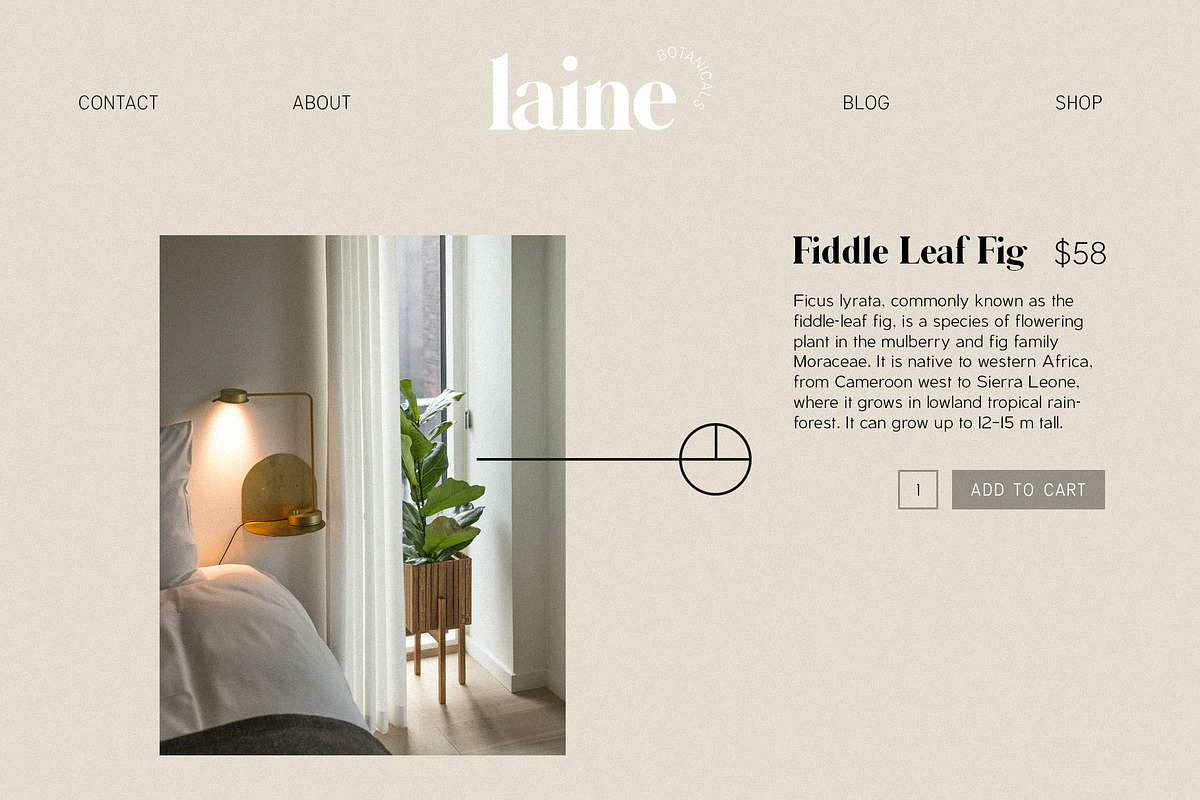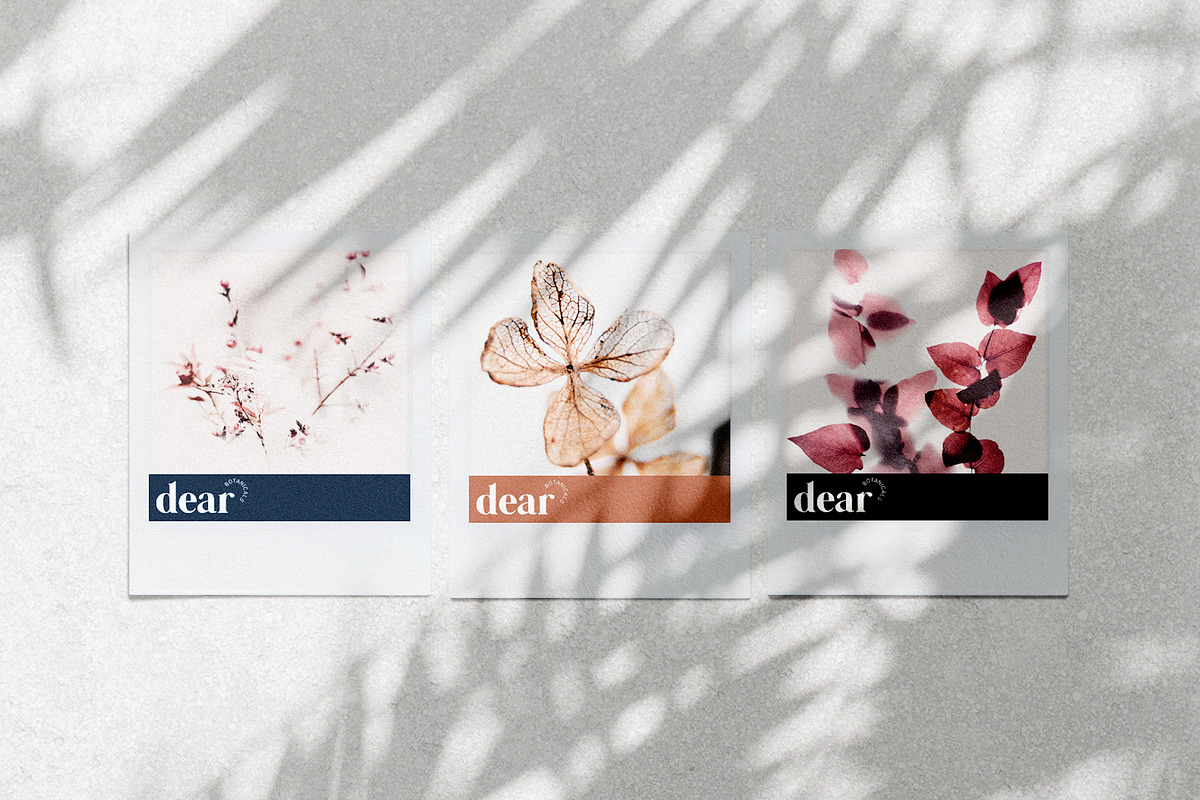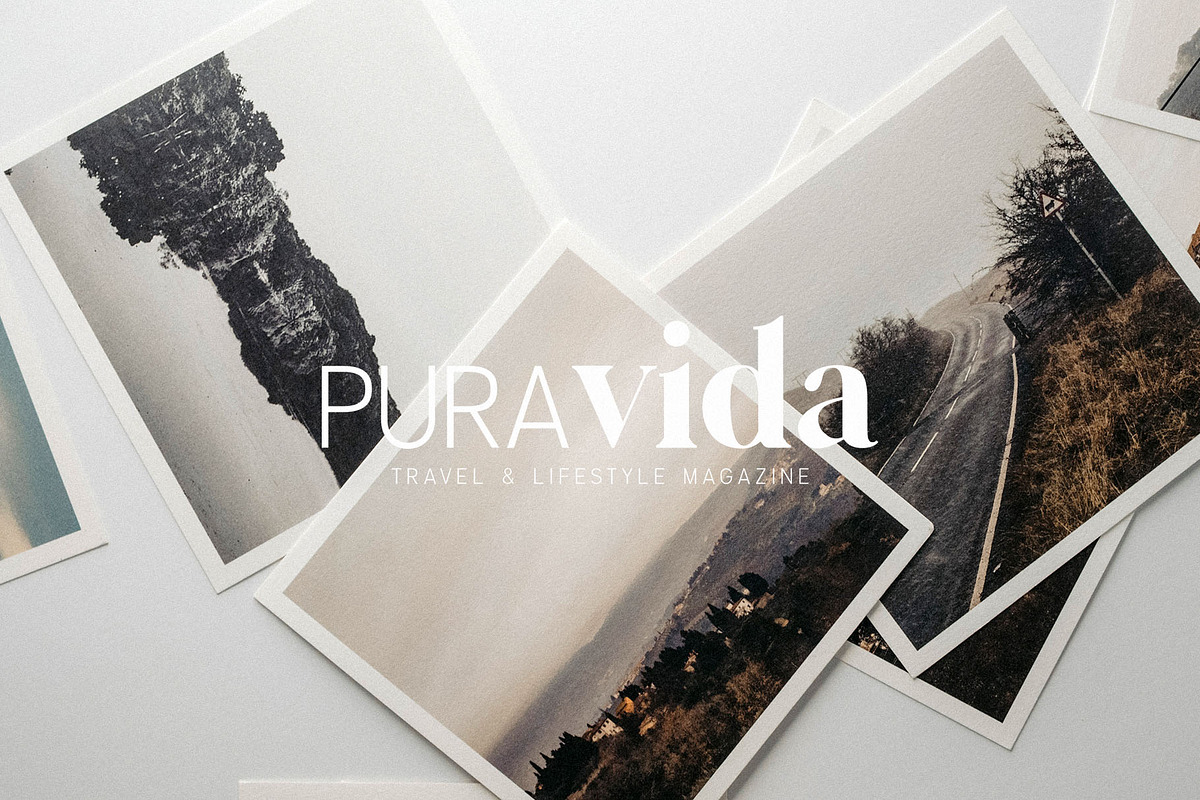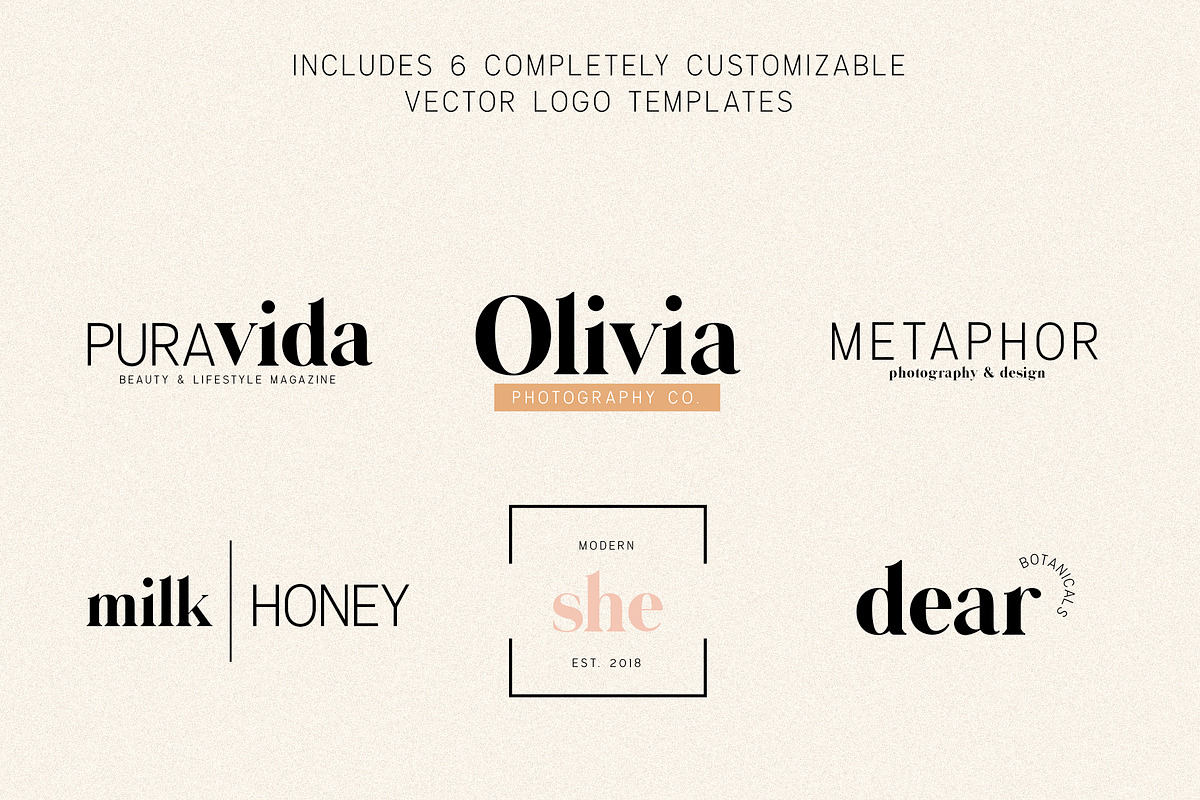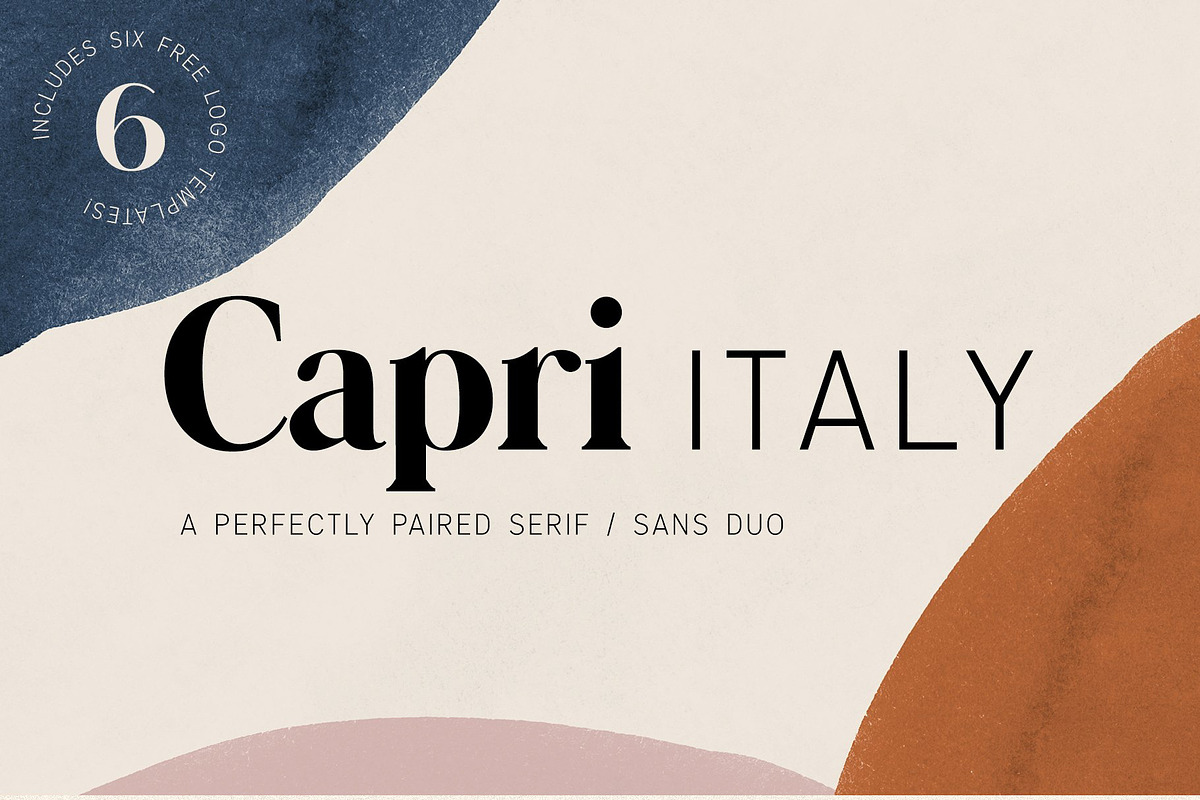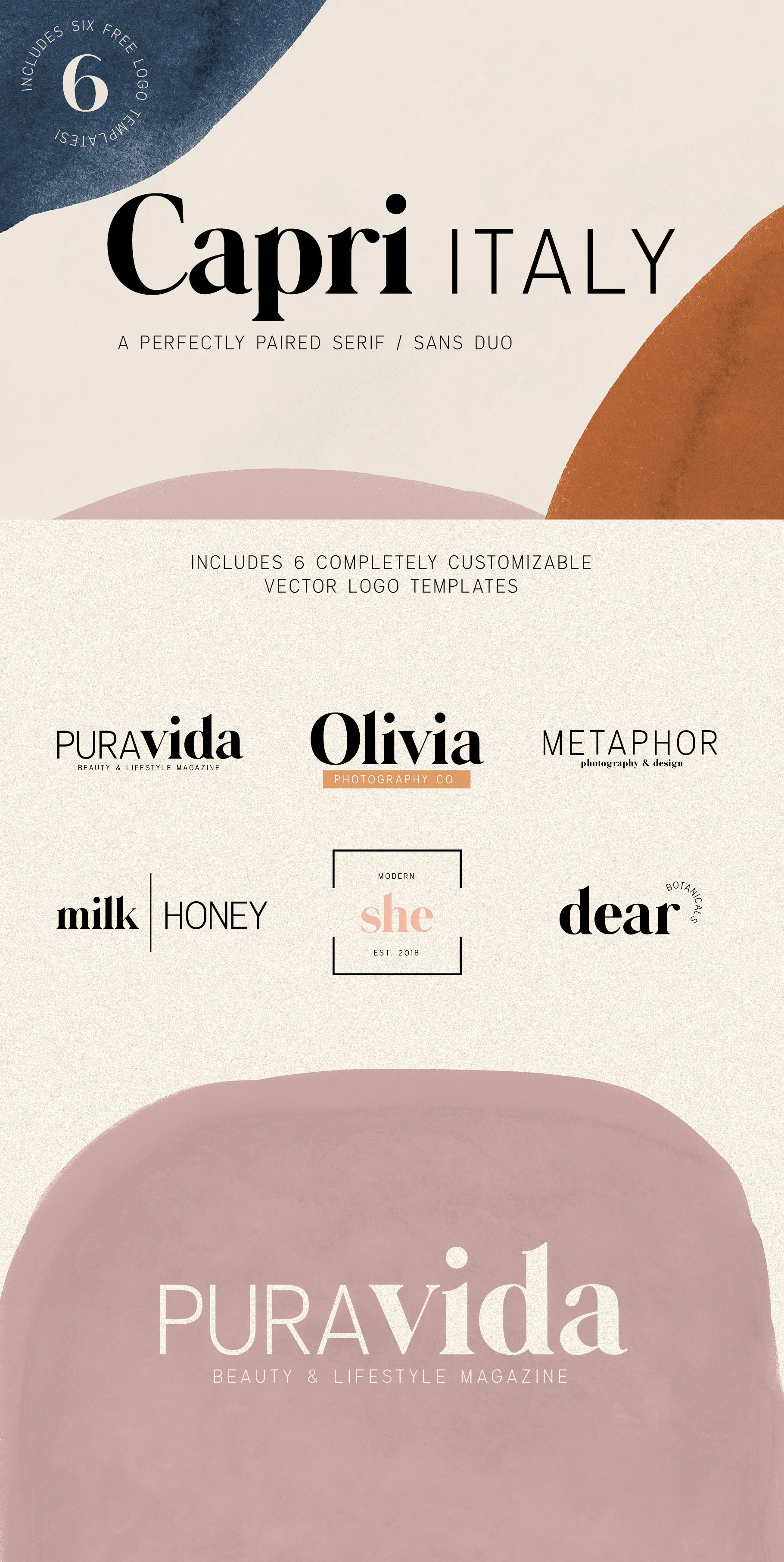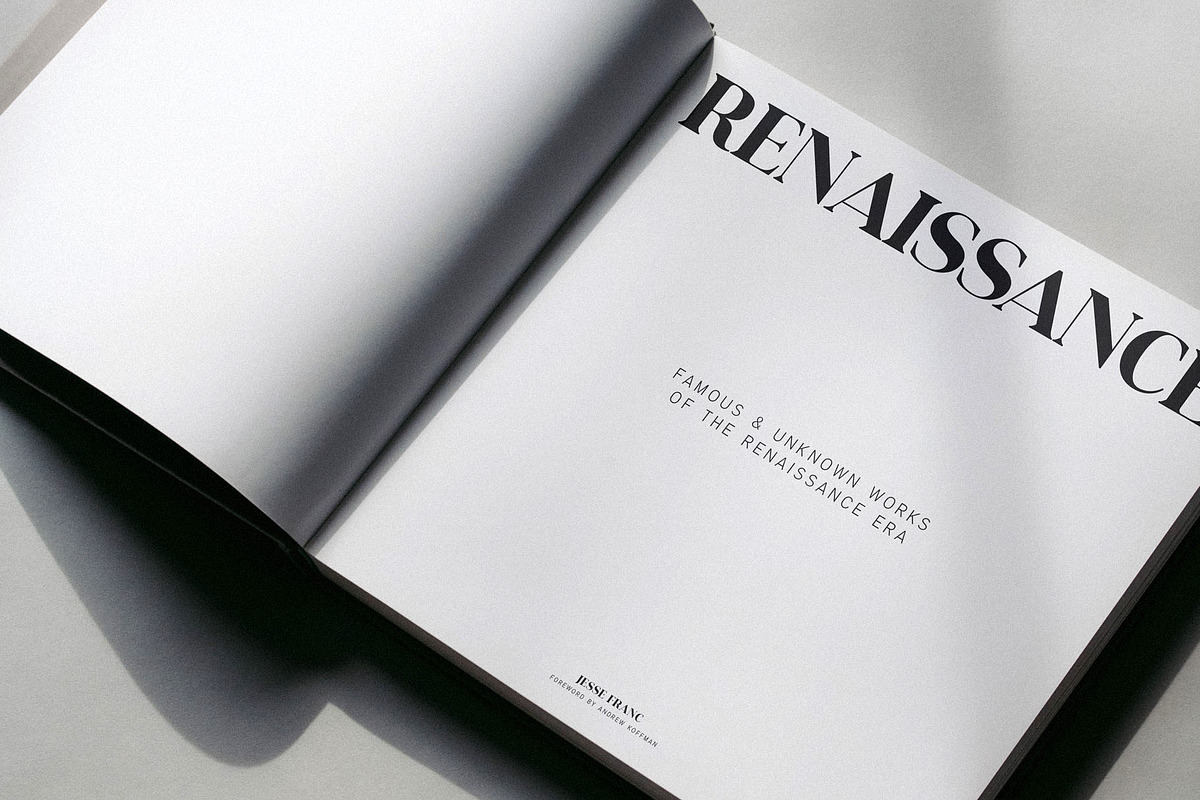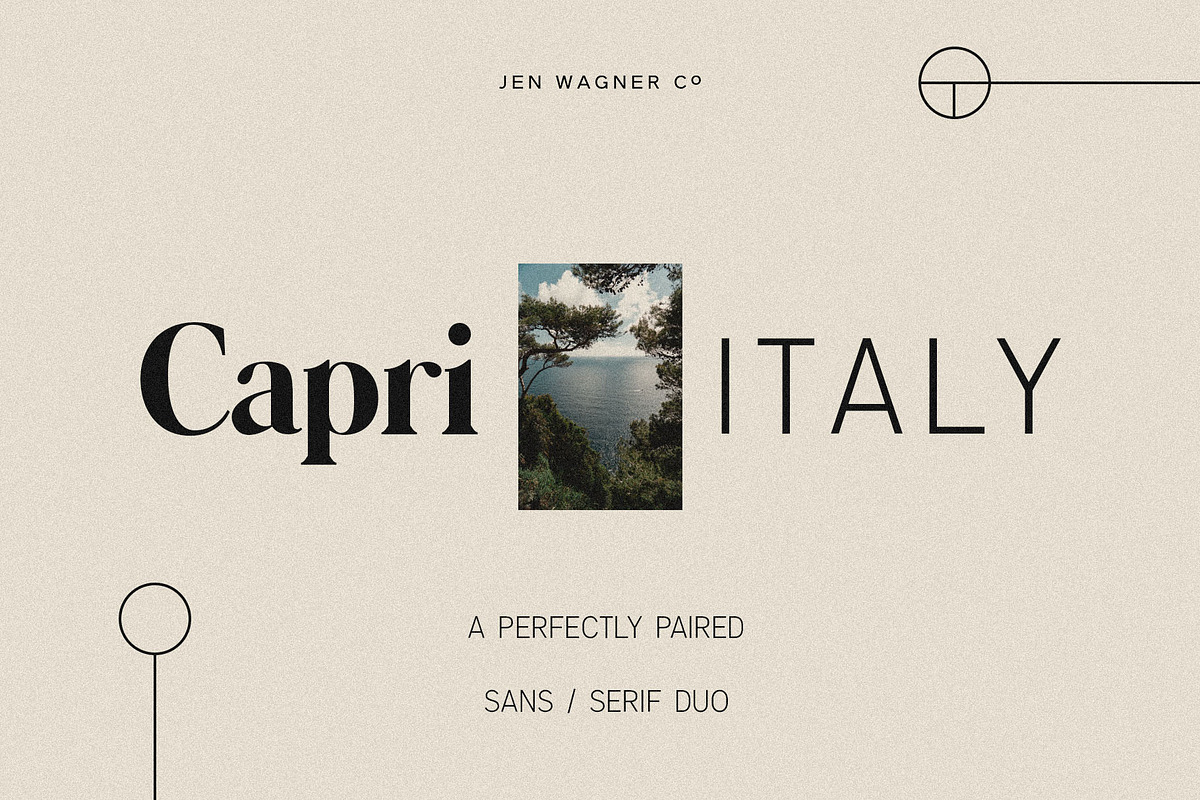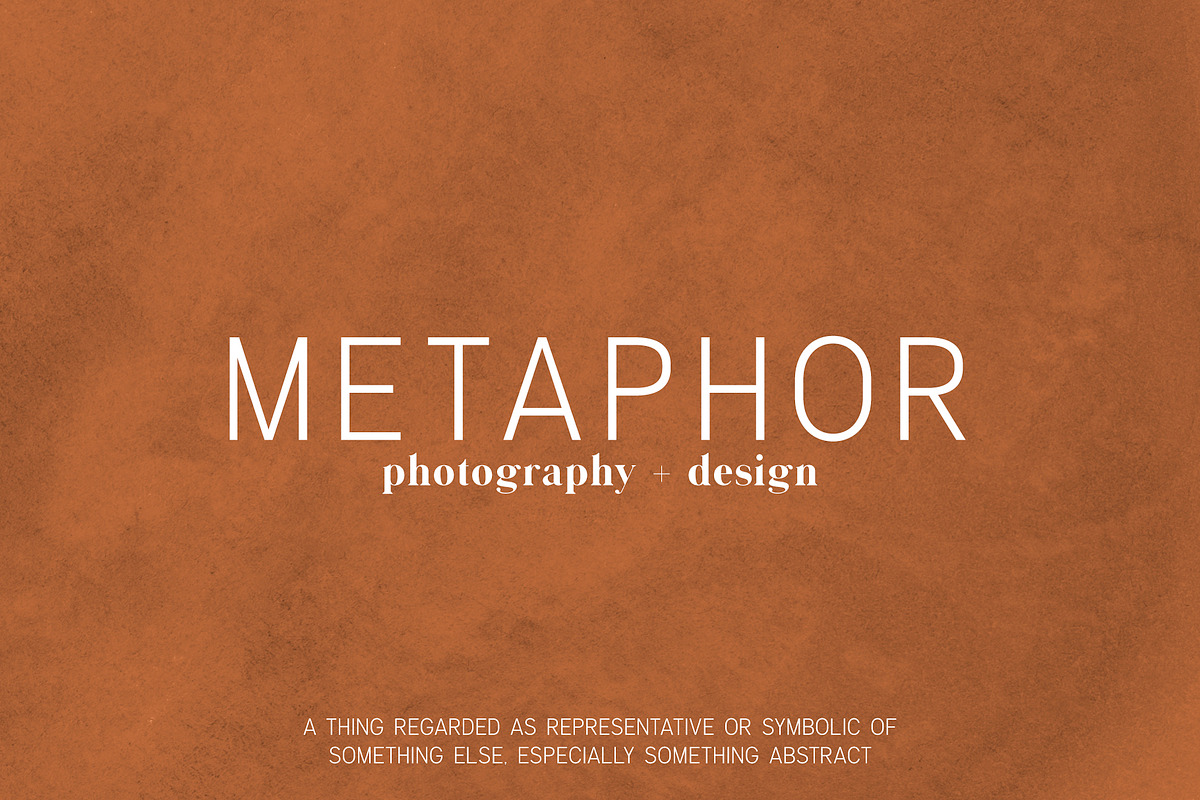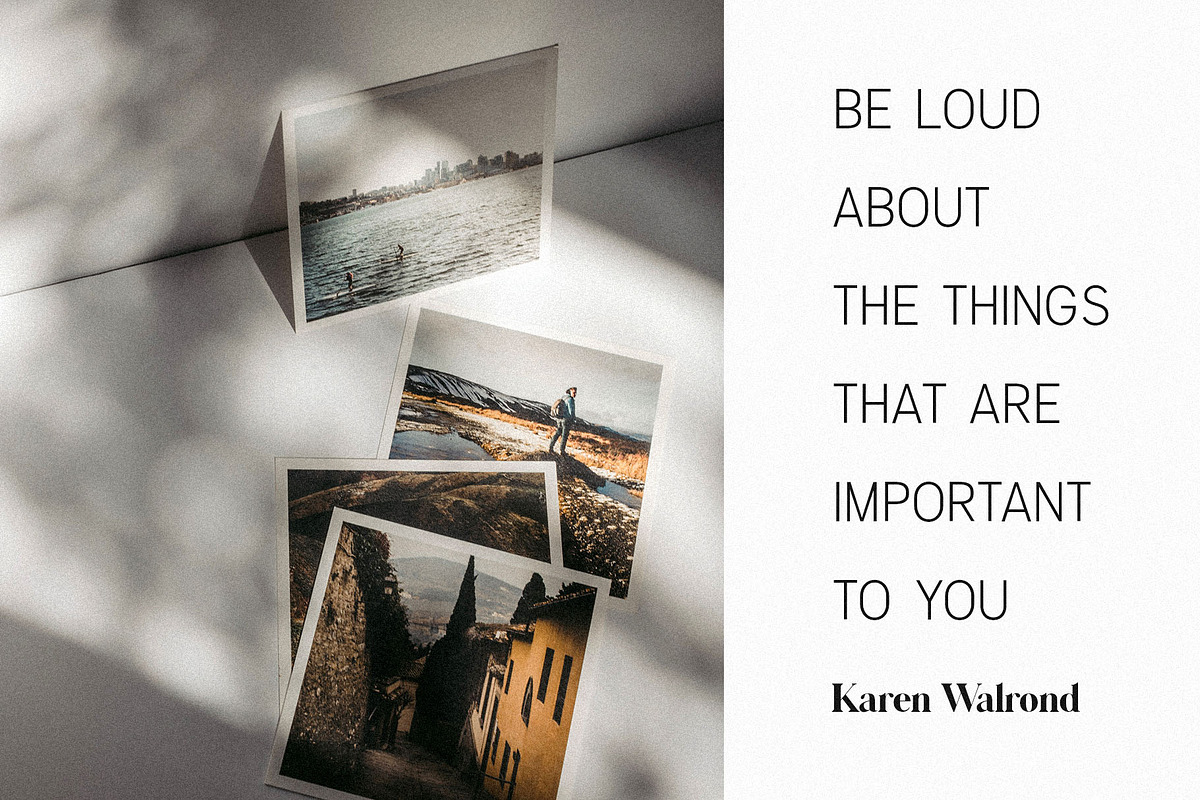
Capri Font Duo w/ 6 Free Logos
Introducing Capri – my first ever serif / sans font duo! I am constantly combining sans and serifs in my design work, and wanted to create the perfect combo for you too!
Capri Serif is a classy, bold upper and lowercase typeface that looks incredible in both large and small settings. See how it looks when used for body text in the 4th sample image above. I also love it for minimal logos. I think my favorite way of combining the two is in the "Nomad" sample image (#5) – a classy, minimalistic logo with complementing sans serif type.
Capri Sans is a clean and minimalistic uppercase font that complements Capri Serif beautifully. It also works wonderfully on its own for logos, quotes, and more!